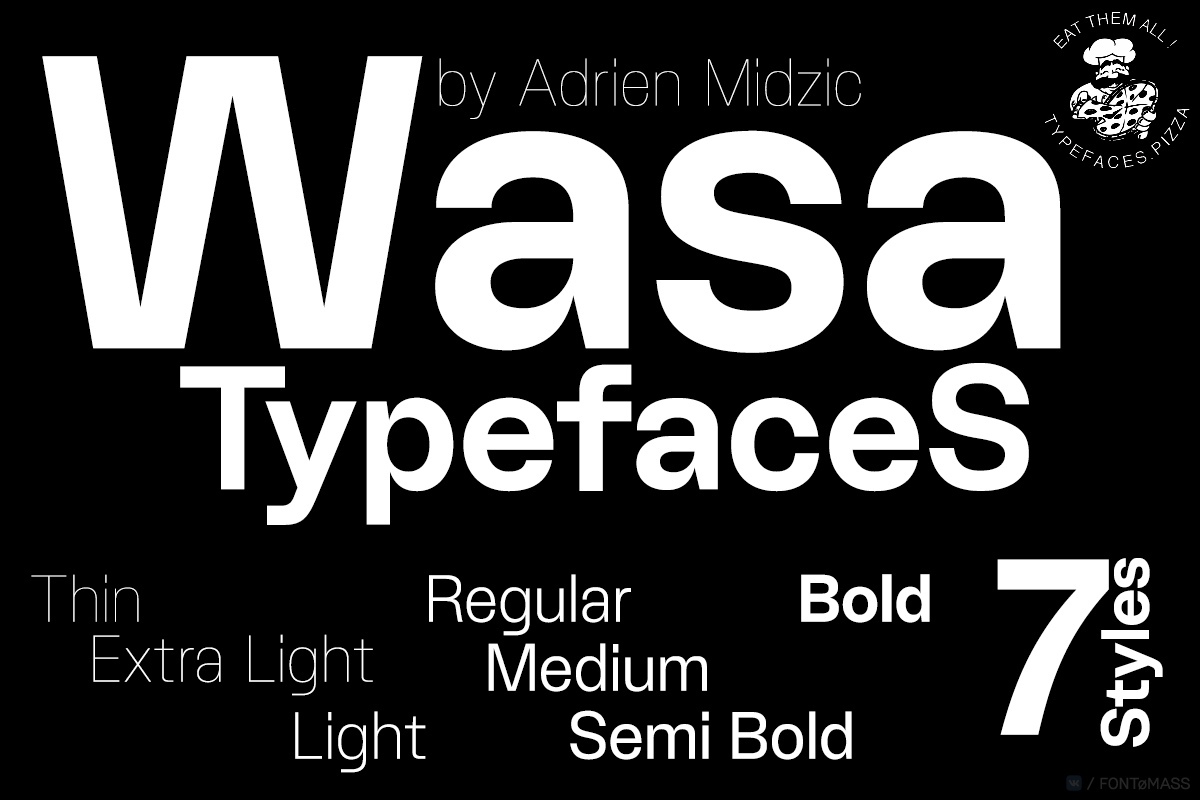
Wasa Font
Wasa Font is perfect for Scandinavian brand identities, Nordic lifestyle campaigns, crispy food packaging, artisanal bakery materials, healthy breakfast branding, traditional Nordic restaurant menus, Swedish cultural projects, and wholesome lifestyle designs.
What makes Wasa Font exciting is its authentically Nordic character that embodies the clean simplicity and wholesome tradition of Scandinavian design through crisp, well-crafted letterforms that seem baked with the honest quality and natural goodness found in traditional Nordic culture. The font features clean geometric structures with subtle Scandinavian details that reflect the practical beauty and honest craftsmanship that defines Nordic design philosophy. Its wholesome aesthetic and Nordic authenticity make it perfect for brands that want to communicate natural quality, honest simplicity, and the kind of straightforward goodness that defines Scandinavian values while creating memorable experiences that celebrate the beauty of uncomplicated excellence and traditional craftsmanship.
Wasa Font family includes various Nordic weights such as Light, Regular, Medium, and Bold variations, often featuring Scandinavian-inspired alternates and wholesome decorative elements. The family may include Nordic symbols, traditional ornaments, and clean ligatures that enhance the font's authentic aesthetic, providing designers with comprehensive options for creating honest typographic compositions that honor Scandinavian heritage and wholesome living.